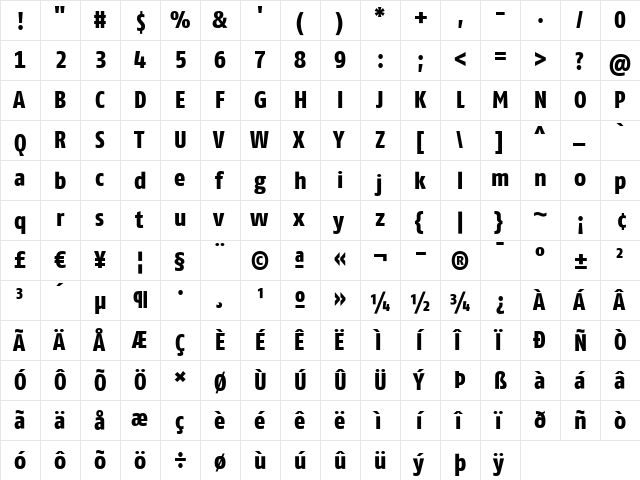
FagoCoTf Extrabold
Design Context for FagoCoTf Typeface
FagoCoTf offers clean, dependable letterforms without strong stylistic allegiance, making it a practical choice for designers who need flexibility. The heavy weight commands attention and anchors typographic hierarchies.